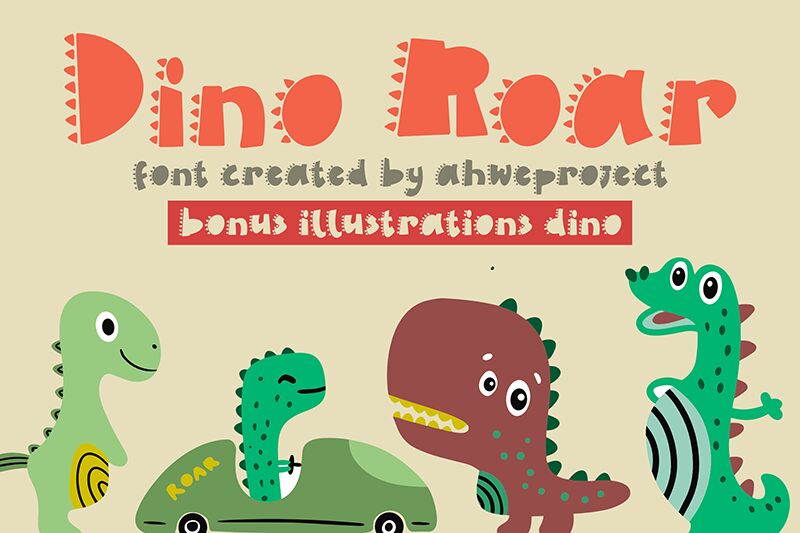
Dino Roar Regular
Dino Roar font by Ahweproject is inspired by the bold and mighty dinosaurs. This free cartoon display font features a child-friendly appeal, whimsical texture, irregular contours, thematic decorations and lively look. Its rounded forms give it an entertaining vibe with joyful emotions that both kids and adults will enjoy.
The font is a winning choice for children’s books, educational materials, video games design, logos & branding, web design elements within websites targeting younger audiences such as schools and kindergartens or blogs. Other use-cases include stationery designs and semi-formal advertisements.